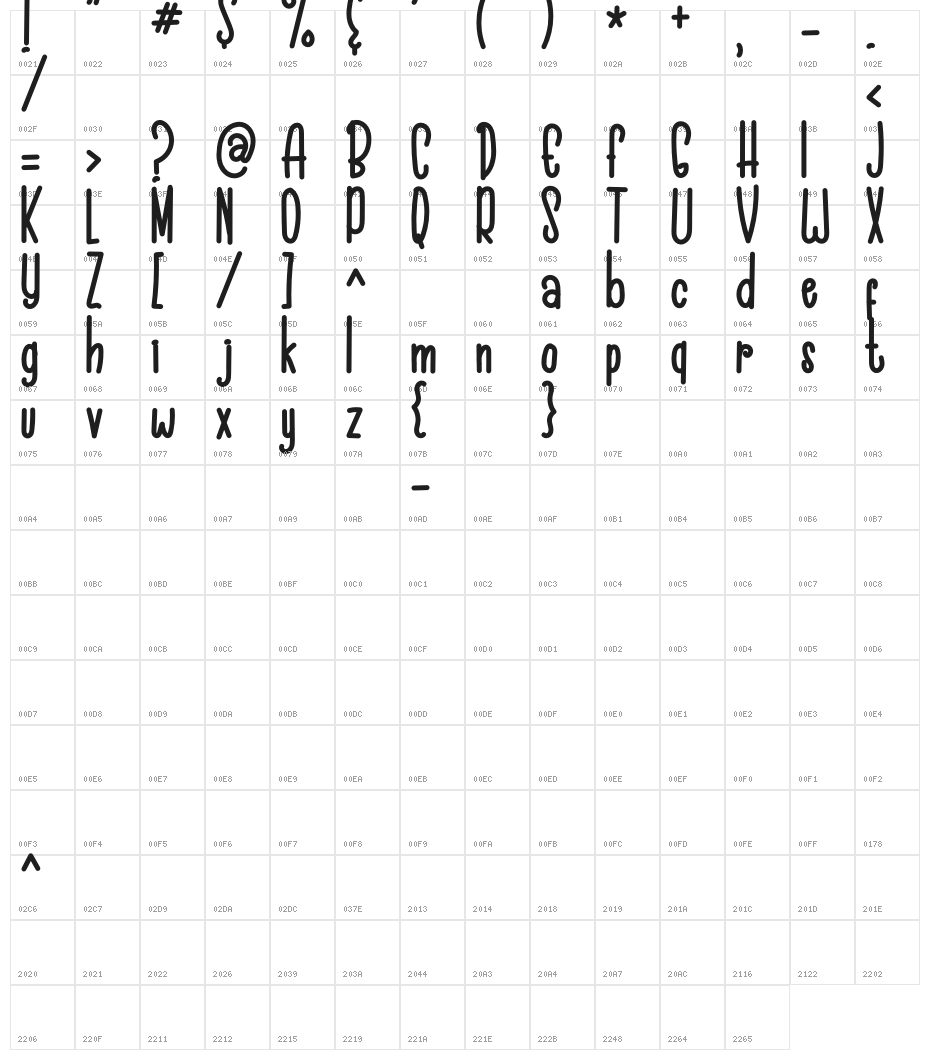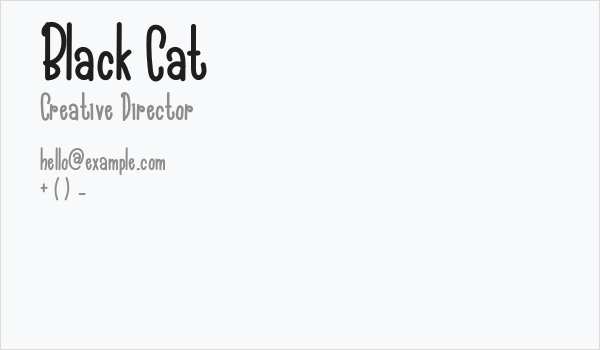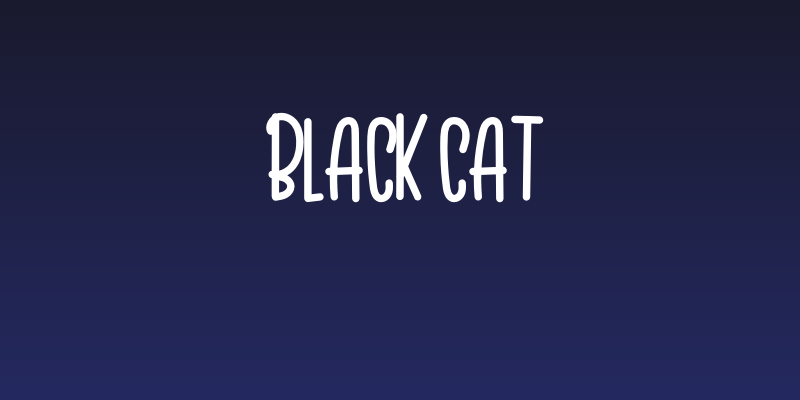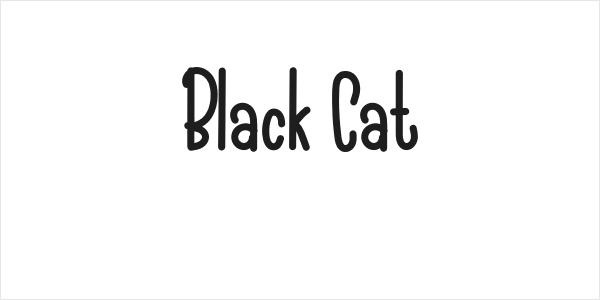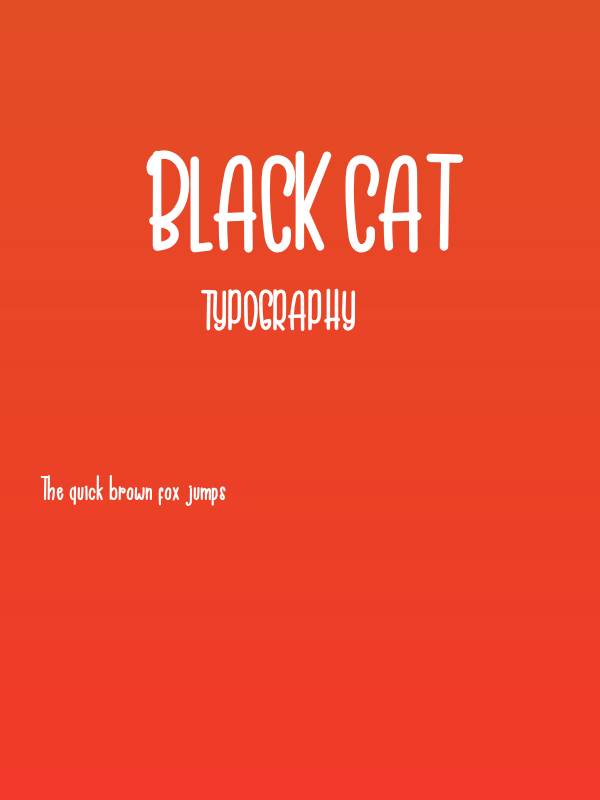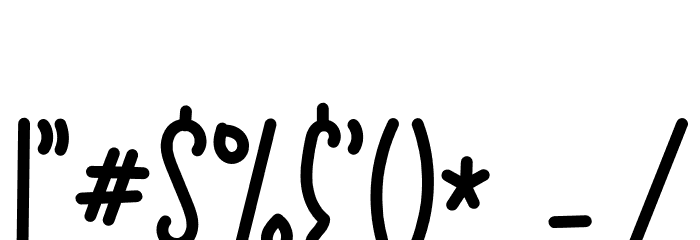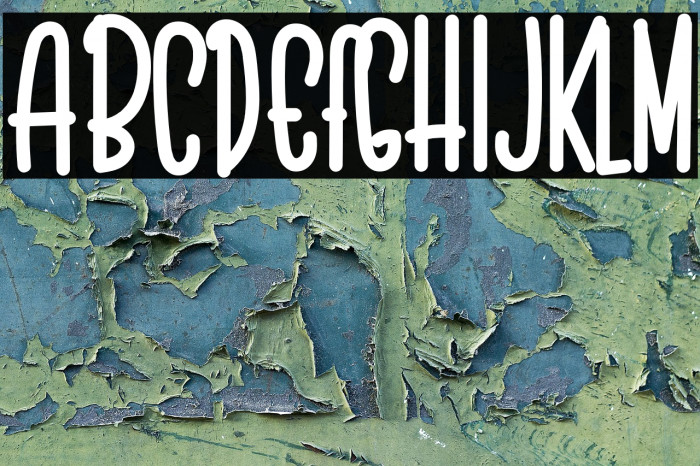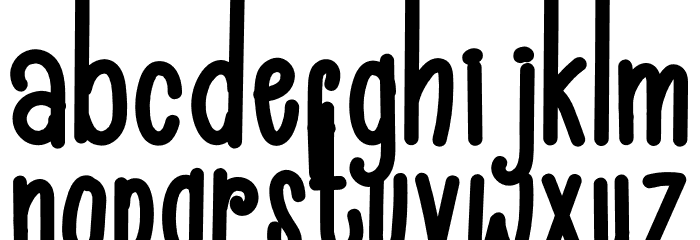
Black Cat Font
Black Cat Description
This font features a playful and whimsical style with a bold and slightly irregular appearance. The letters are tall and narrow, with a unique hand-drawn quality that adds character and charm. The uppercase and lowercase letters maintain a consistent style, with rounded edges and a slightly uneven baseline, giving it a casual and friendly feel. The numbers and special characters follow the same design principles, ensuring a cohesive look across all glyphs. This font's distinctive style makes it suitable for creative and informal projects, where a touch of personality is desired.